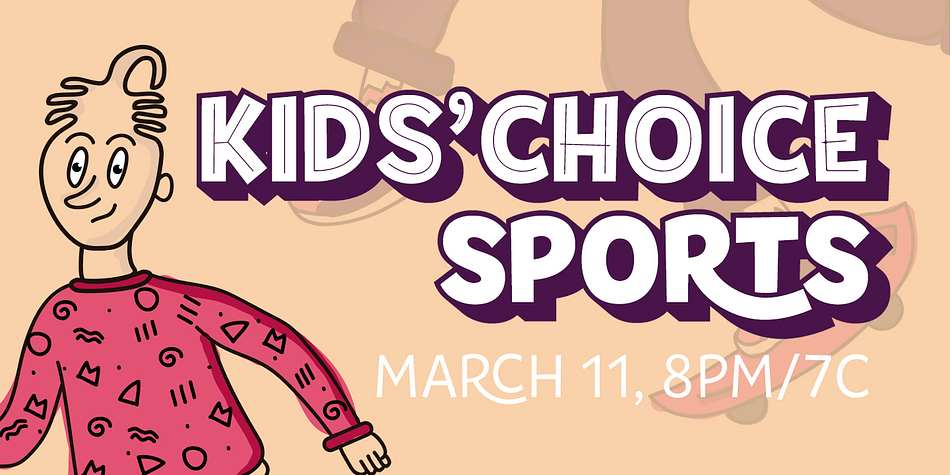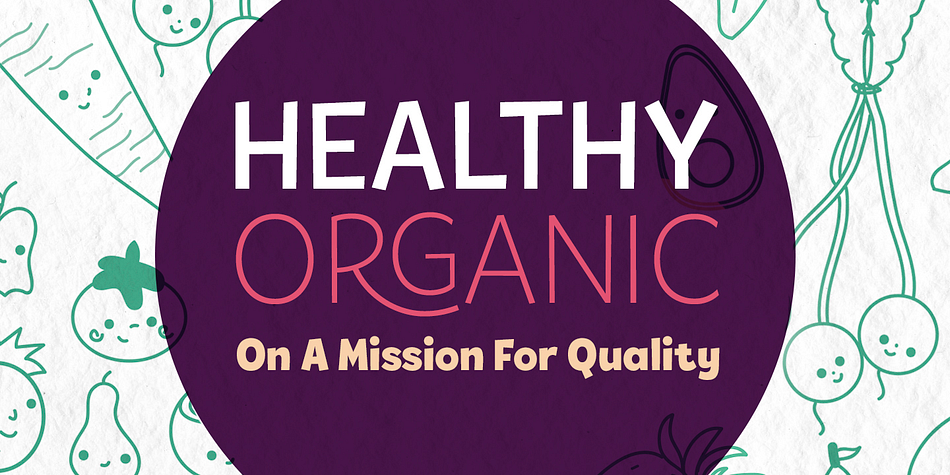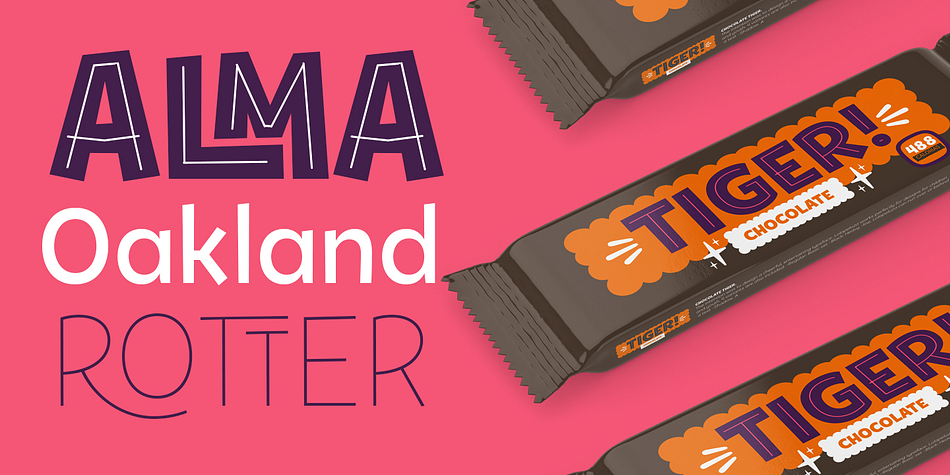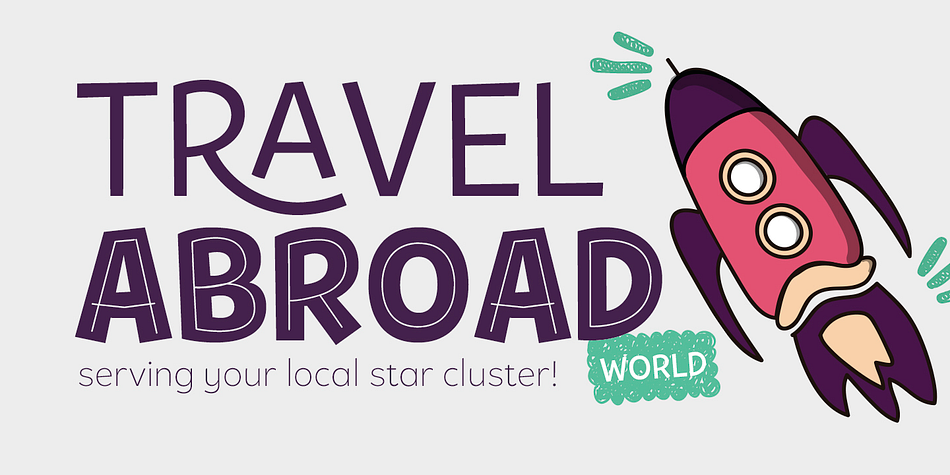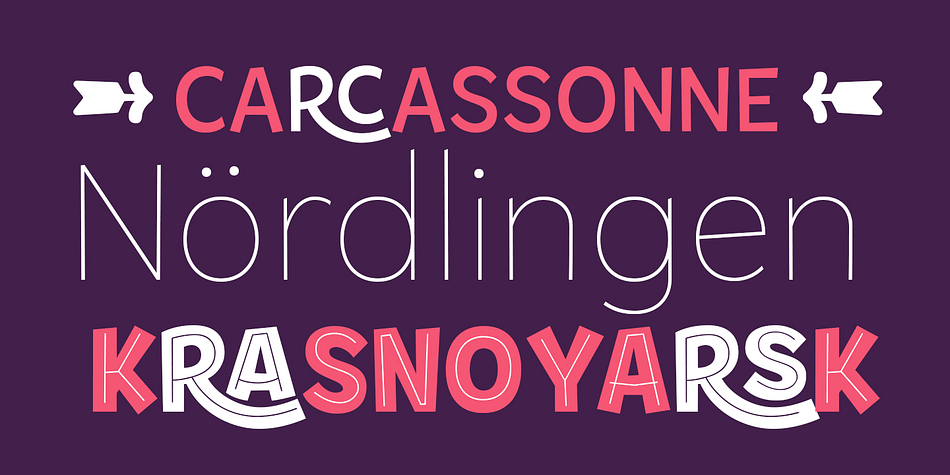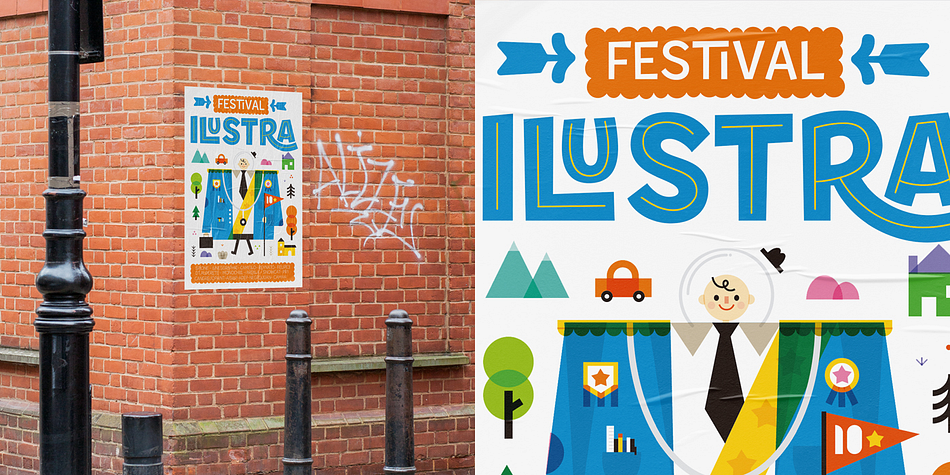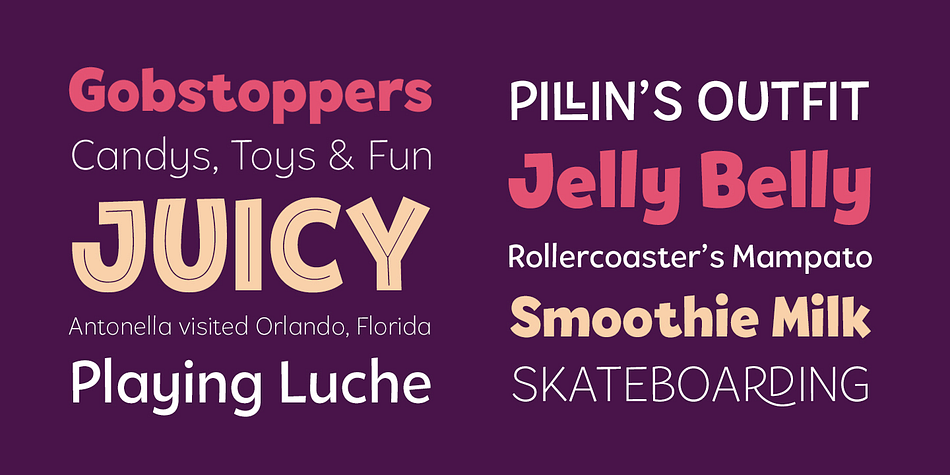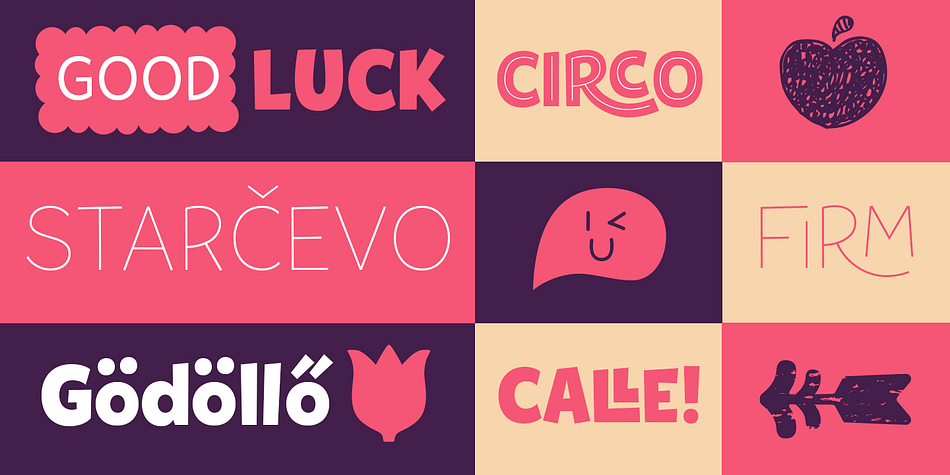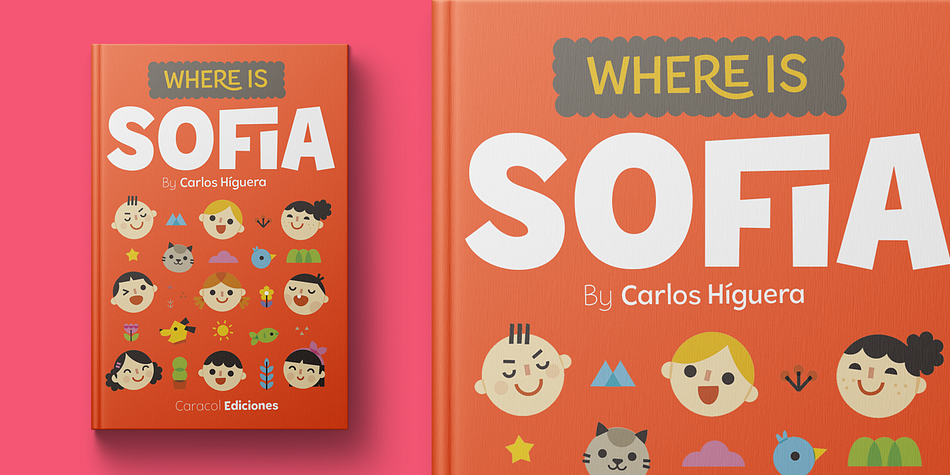
Designed by Andrey Kudryavtsev, Rodrigo Araya Salas and Franco Jonas, Tobi Pro is a multiple classification font family. This typeface has thirteen styles and was published by Rodrigo Typo.
Tobi Pro - the new version of Tobi “the previous year” - is a geometric typographic family with an organic touch. Contains 7 fun variants, shadows, dingbats and effects for the Heavy variant, also has OpenType alternatives in all its variants.
Tobi is a perfect typeface for posters, packaging, logos and any visual communication application inherent to children and youth designs.